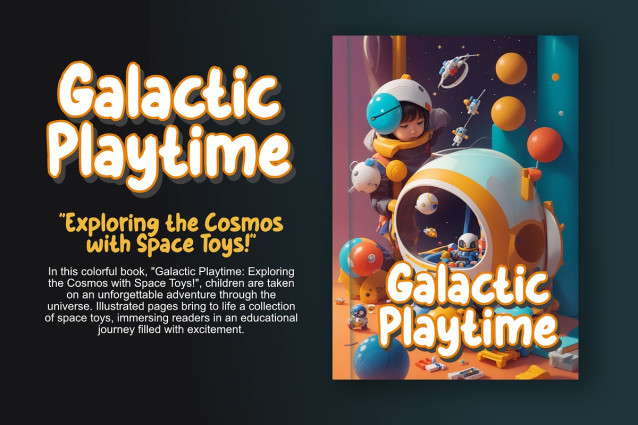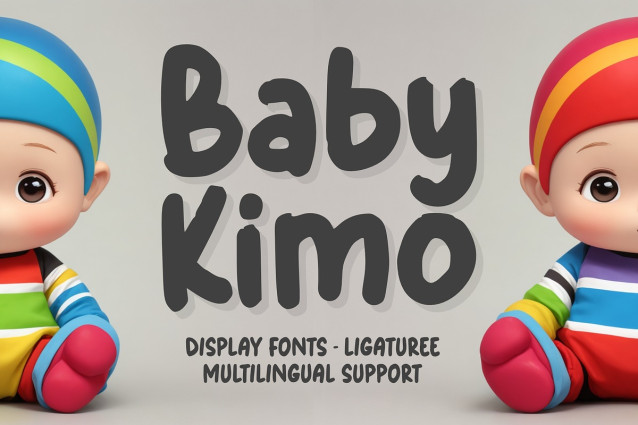
Baby Kimo Font
Baby Kimo Font is a font specially designed to convey a cute, friendly impression, suitable for children’s content. With a gentle and lovely design, “BabyKimo” has rounded characters, creating a welcoming and recognizable feeling for children who are just starting to learn to read.
Each letter in “Baby Kimo” is carefully crafted to convey joy and warmth, perfect for projects aimed at young children. This font can provide an attractive visual highlight while maintaining good readability, providing a pleasant reading experience for children. “BabyKimo” is an ideal choice for children’s book titles, posters or other creative materials to create a playful and friendly atmosphere.